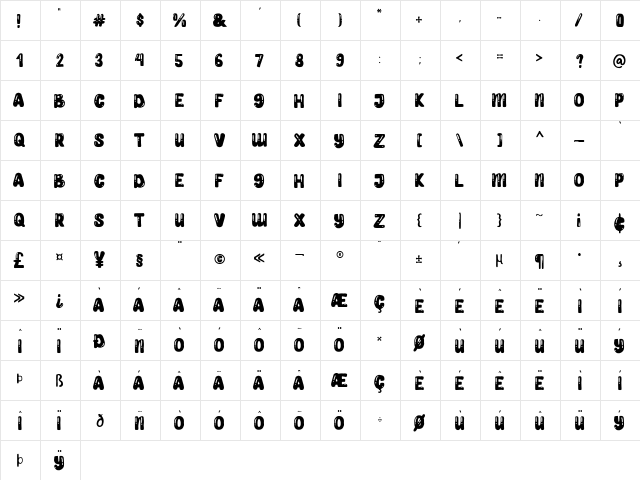
Hey Kidos Regular
Design Context for Hey Kidos Typeface
Hey Kidos is a composed and adaptable typeface that performs quietly and consistently across a wide range of design contexts.
Pro Tip: Pair Hey Kidos with a font of contrasting weight or personality to build a more expressive typographic hierarchy.